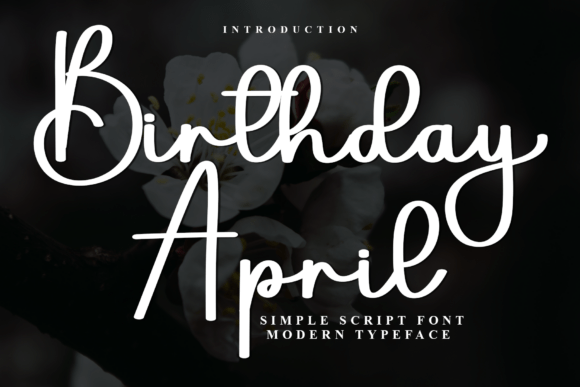
The Magic of Birthday April Font: Elevate Your Designs with Whimsy and Cheer
I’ll never forget the time I was working on a birthday card project for a client, and I just couldn’t find the right font to capture the festive spirit. The design was supposed to be playful, fun, and celebratory, but every font I tried seemed either too boring or too over-the-top. That’s when I stumbled upon Birthday April Font, and it was like a party exploded in my design software! 🎉 In this article, I’ll share my love for this delightful typeface, its features, and how to make the most of it in your designs.
An Honest Review of Birthday April Font
- ✨ Festive and merry vibe: Birthday April Font is perfect for holiday-themed projects, adding a touch of enchantment to your designs.
- ✅ PUA encoded: Easily access all the amazing glyphs and ligatures, making it a breeze to create stunning text.
- 🎨 Decorative elements and whimsical flair: This font brings a cheerful and nostalgic ambiance to your words, perfect for greeting cards, gift tags, and more.
While Birthday April Font is an amazing typeface, there are a few things to keep in mind:
- ⚠️ Limited use cases: This font is specifically designed for festive and holiday-themed projects, so it might not be the best choice for more formal or professional designs.
- 🤔 Glyph and ligature management: While PUA encoding makes it easy to access glyphs and ligatures, it can be a bit overwhelming for beginners. Take some time to explore the font’s features to get the most out of it.
The Backstory of Birthday April Font
Legend has it that the designer of Birthday April Font was inspired by the magic of childhood holidays. They wanted to create a typeface that would transport people back to a time of wonder and excitement. With its decorative elements and whimsical flair, Birthday April Font is the perfect result of that vision.
PUA (Private Use Area) encoding allows font creators to include additional glyphs and characters that aren’t part of the standard Unicode range. This means you get access to more features, ligatures, and glyphs, making it easier to create stunning text.
Q: Is Birthday April Font suitable for body text or long-form content?
While Birthday April Font is beautiful, it’s primarily designed for display text, titles, and short-form content. For body text or long-form content, consider using a more readable font to ensure your audience can easily follow your message.